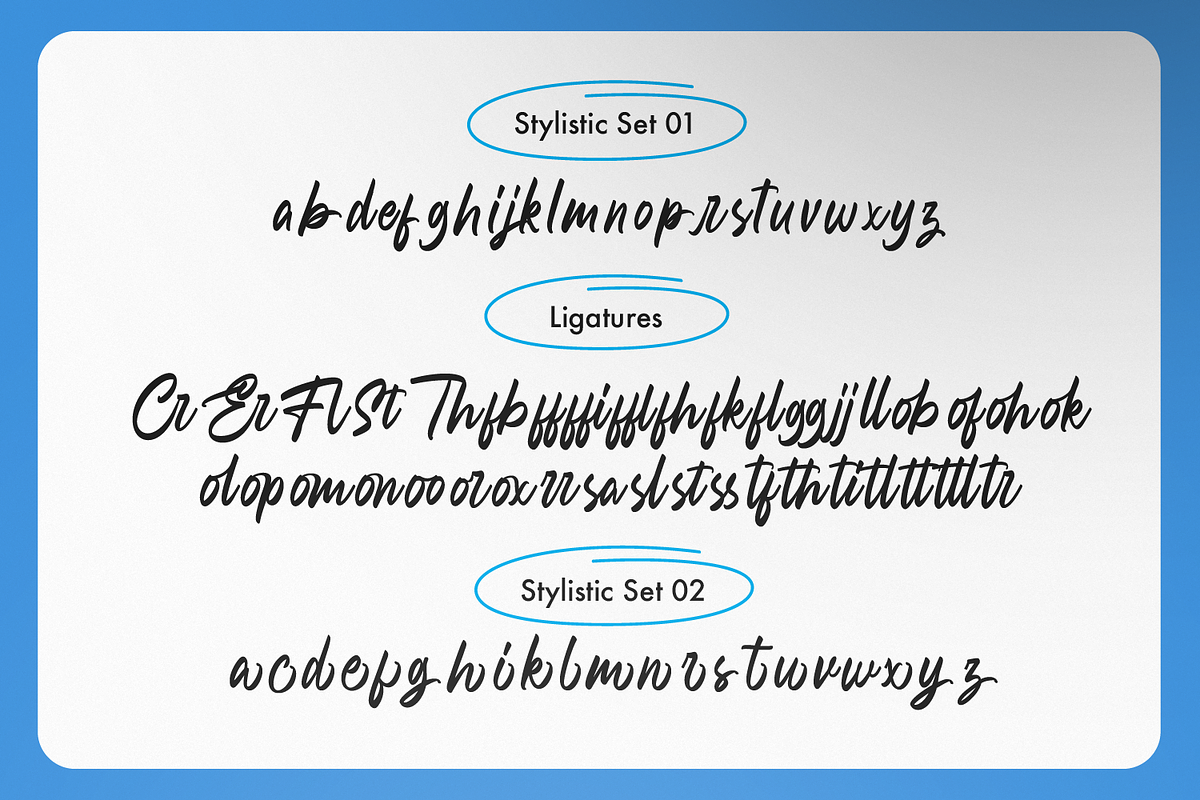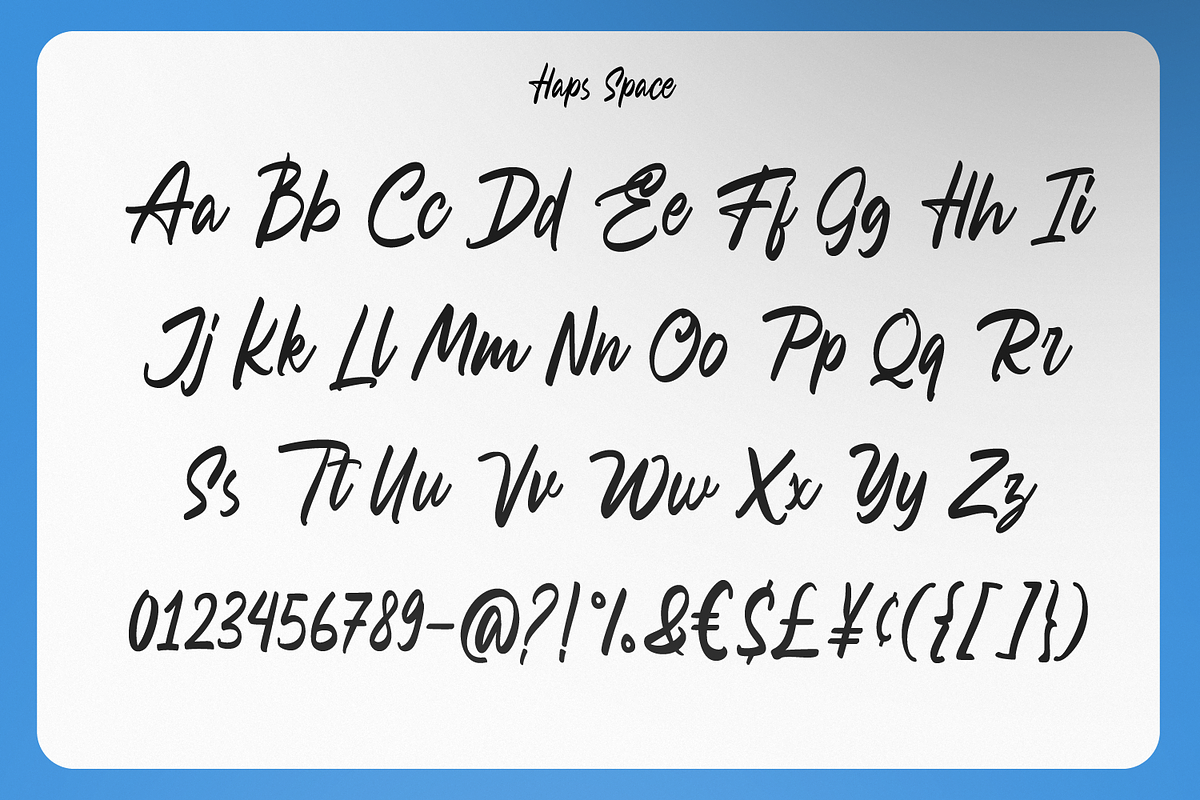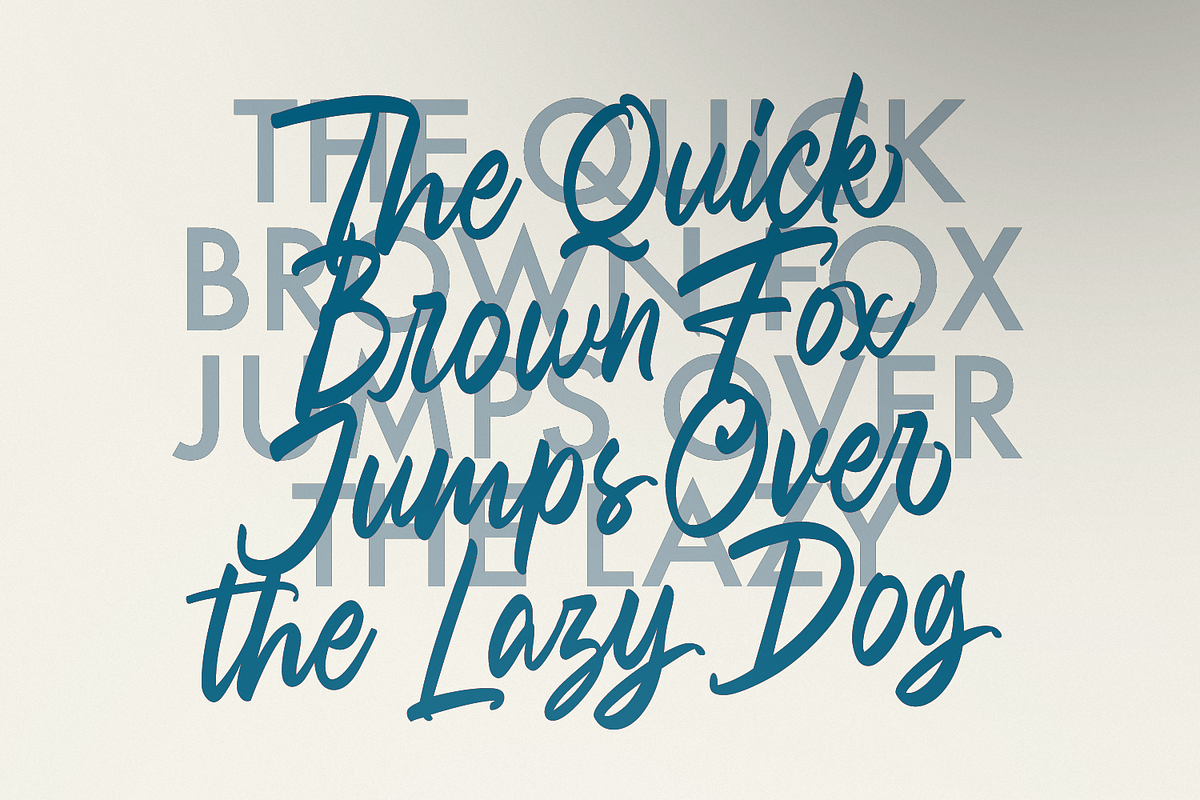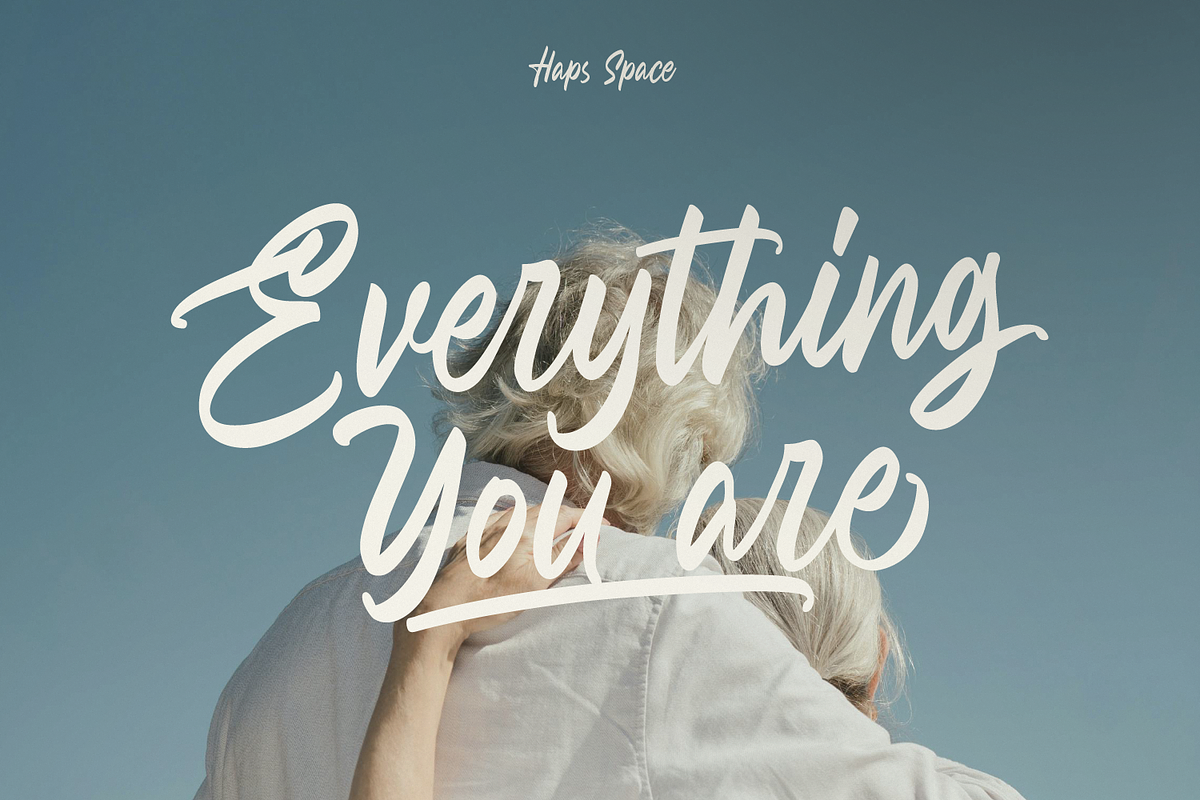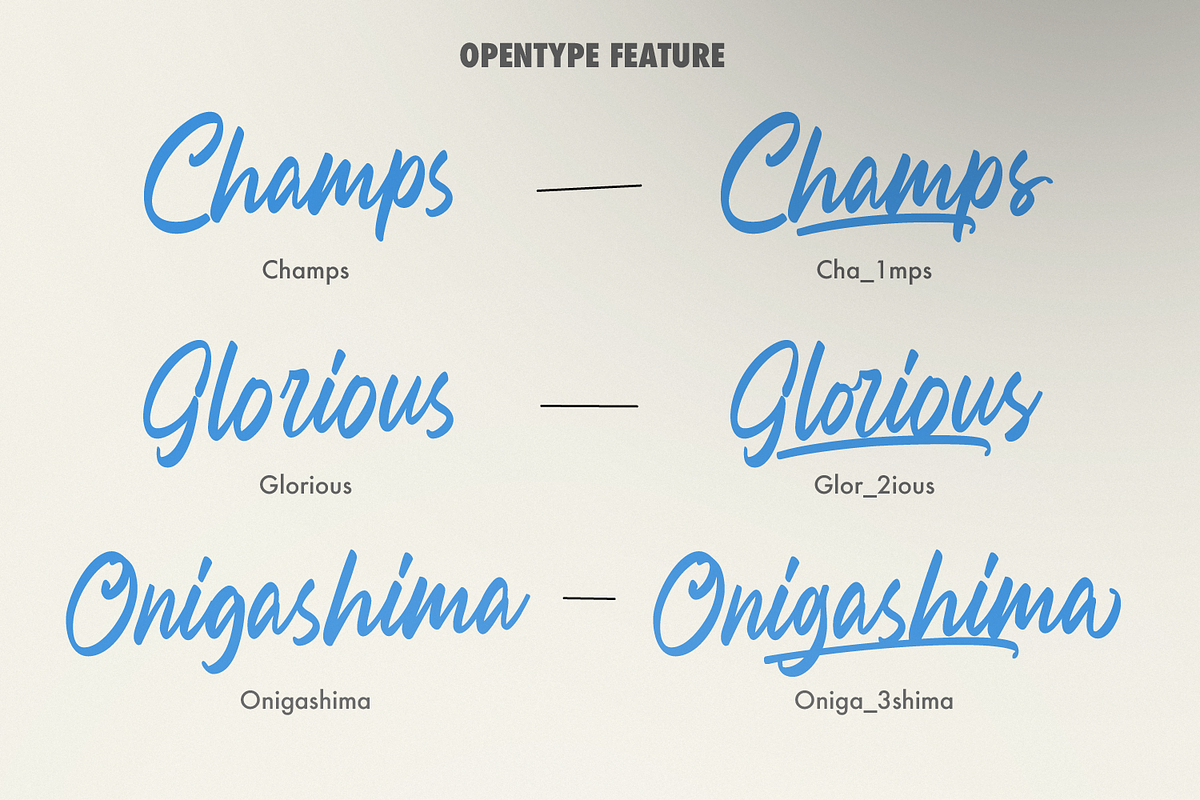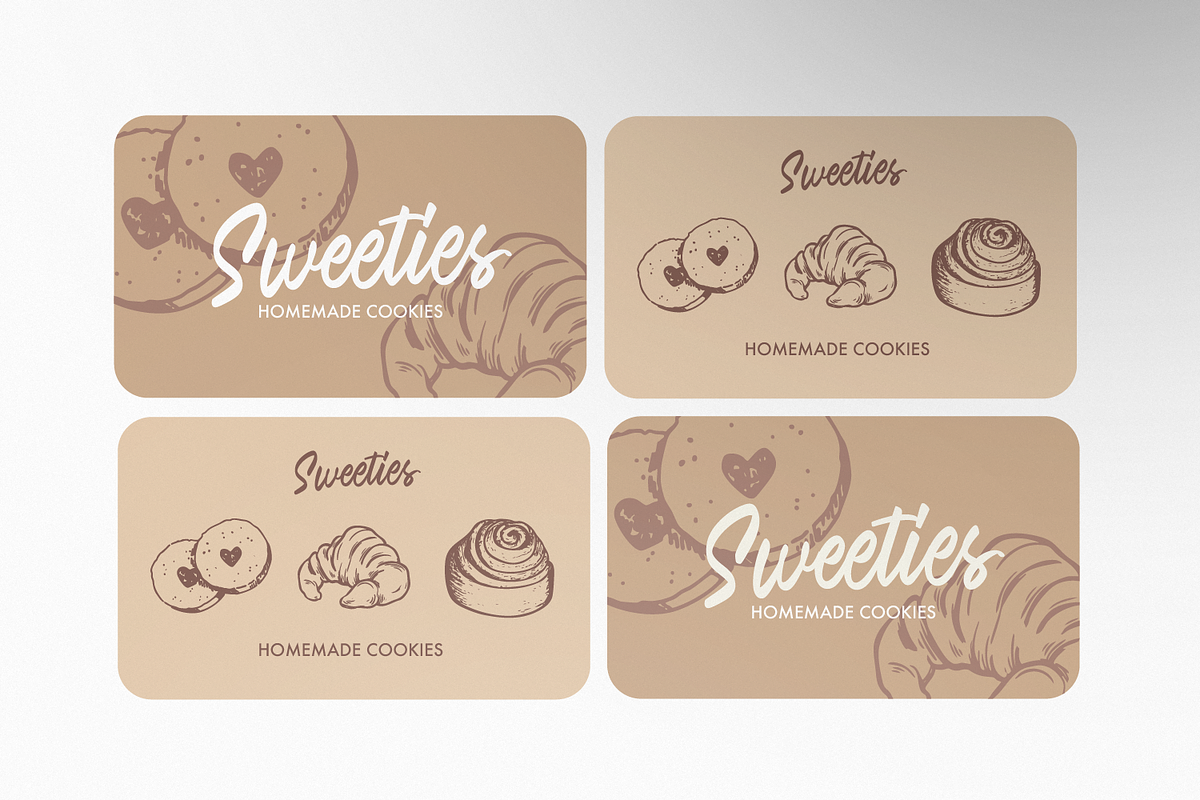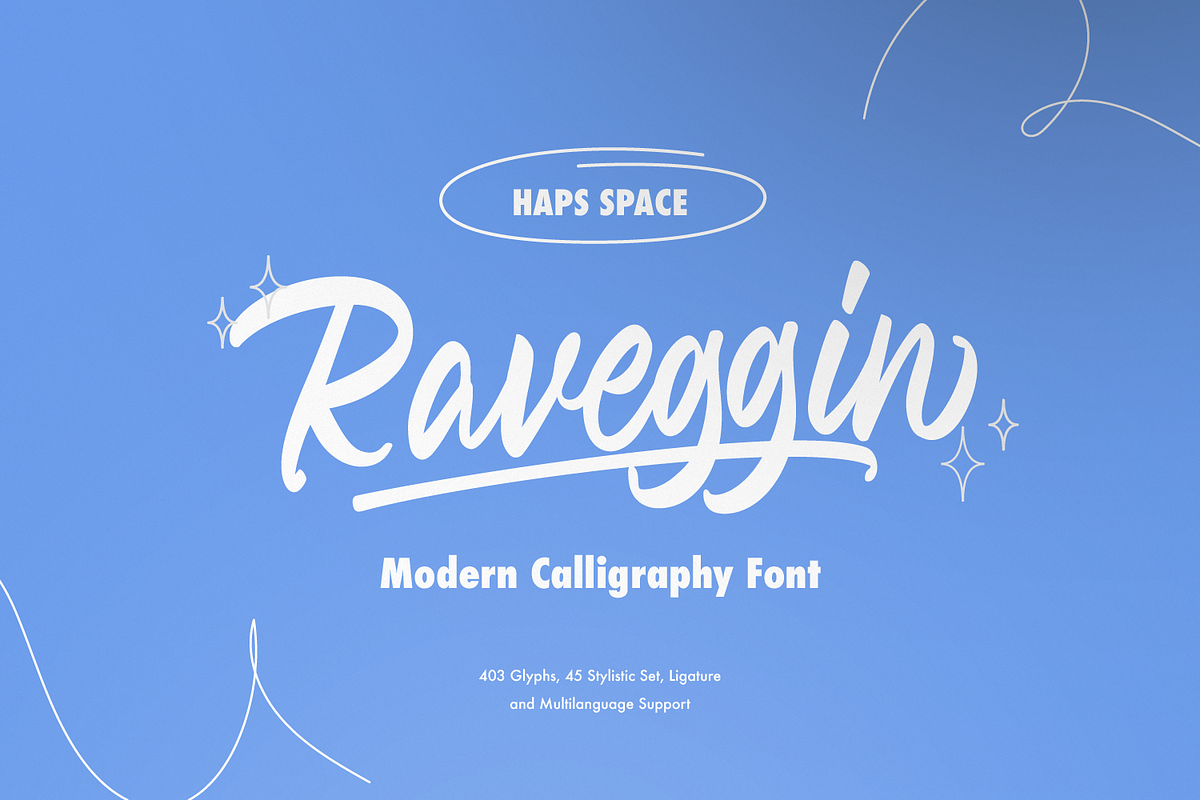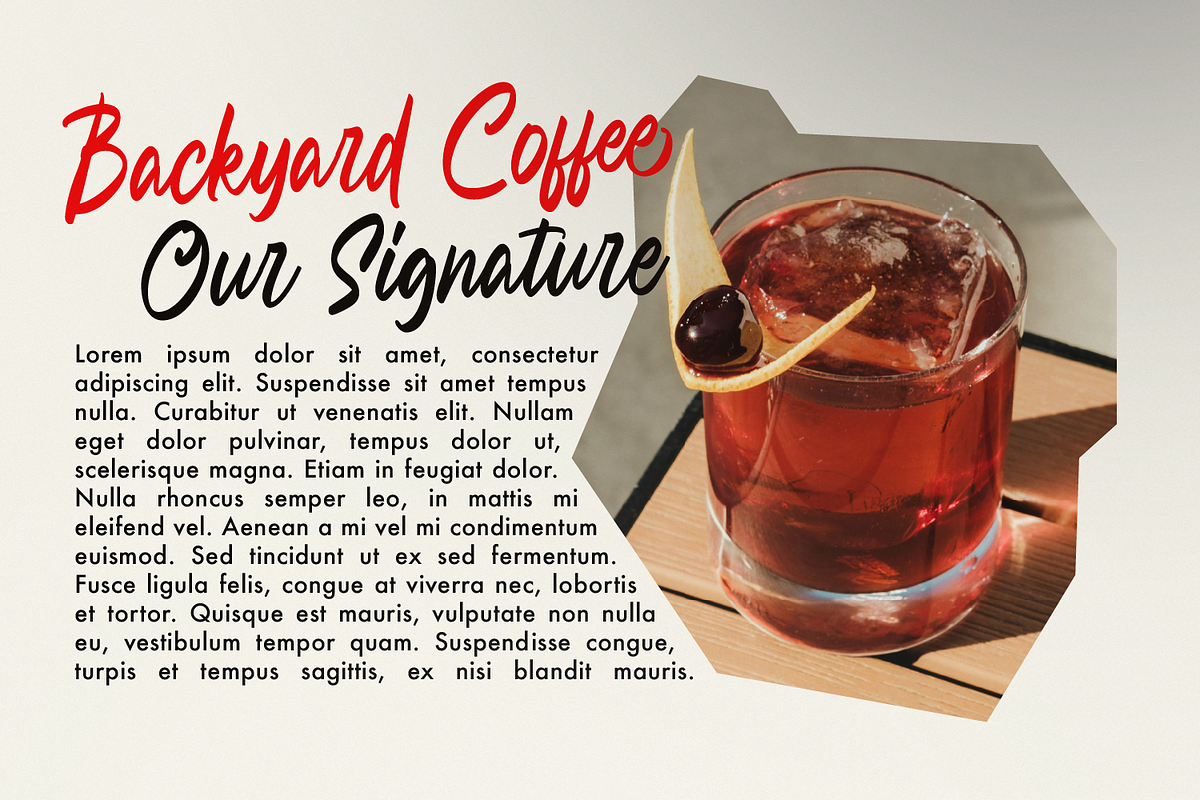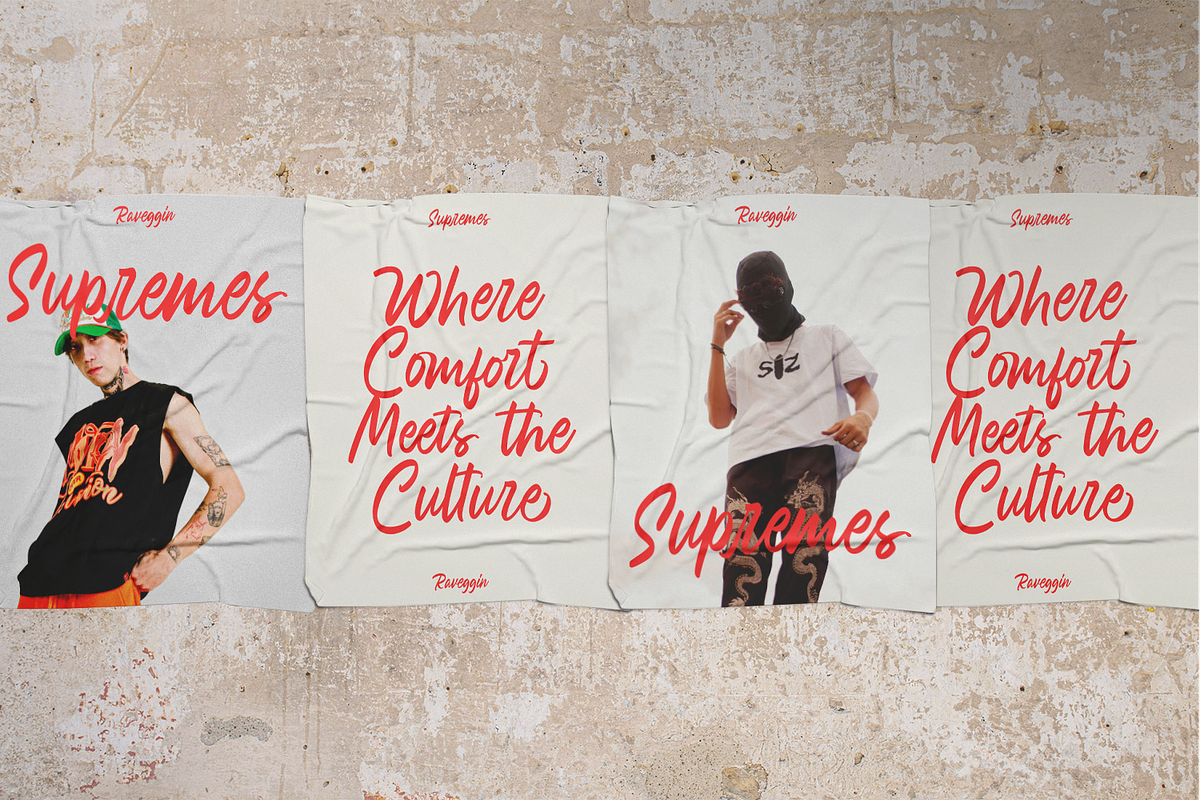
Ravvegin - Calligraphy Font
Ravvegin Calligraphy Font is a Playful Script comes with alternatives and ligatures, helps to create stunning Posters, Branding, Tshirt, Social Media Graphics and much more.